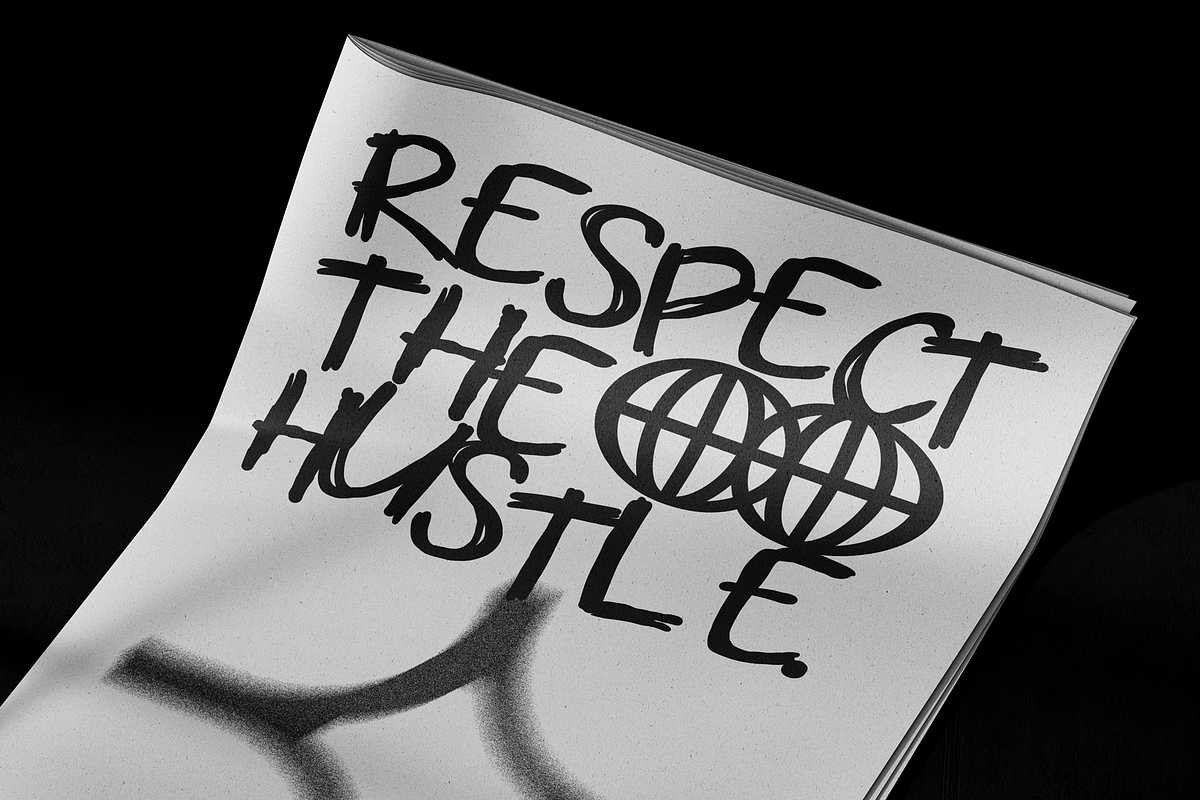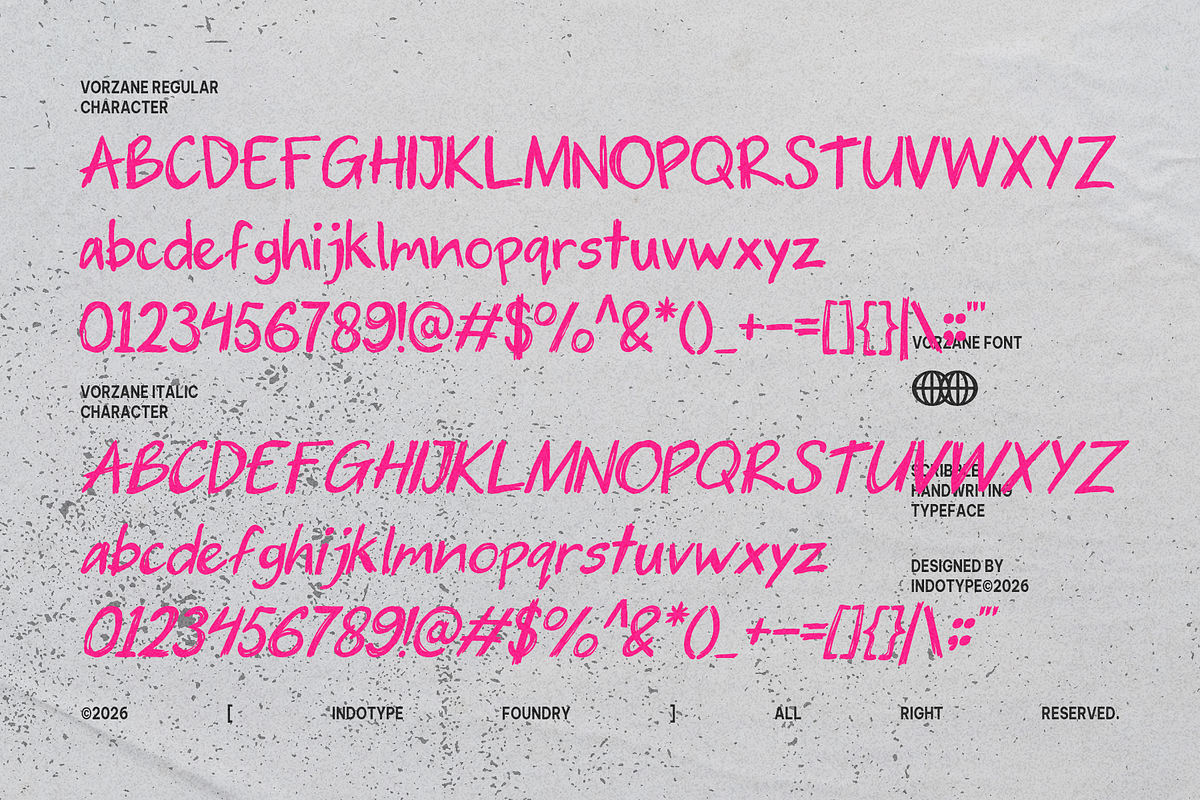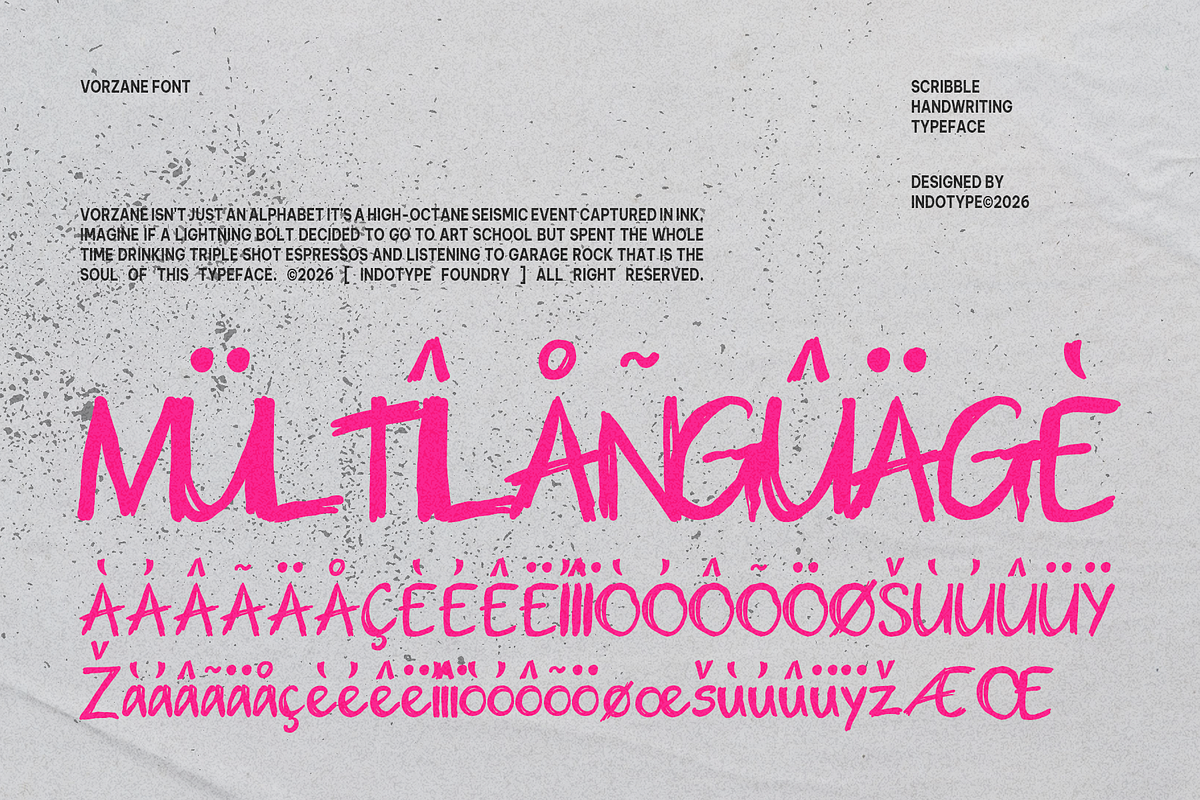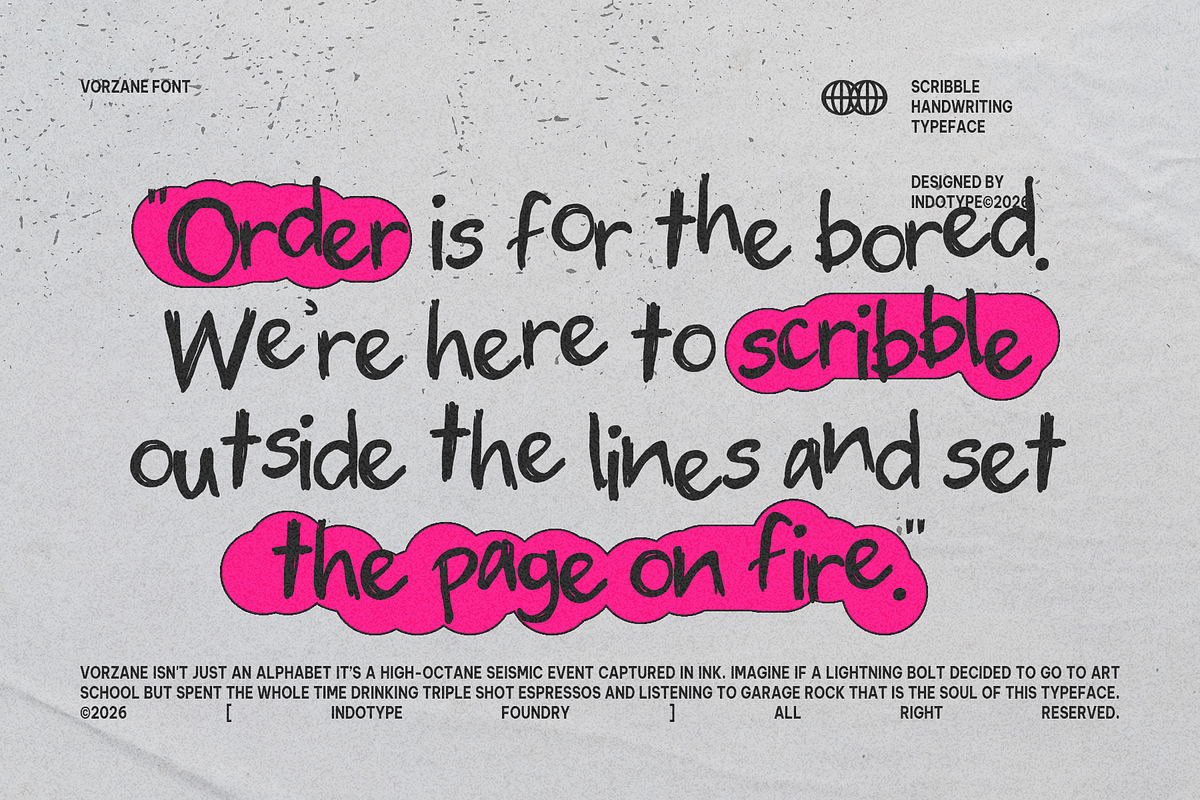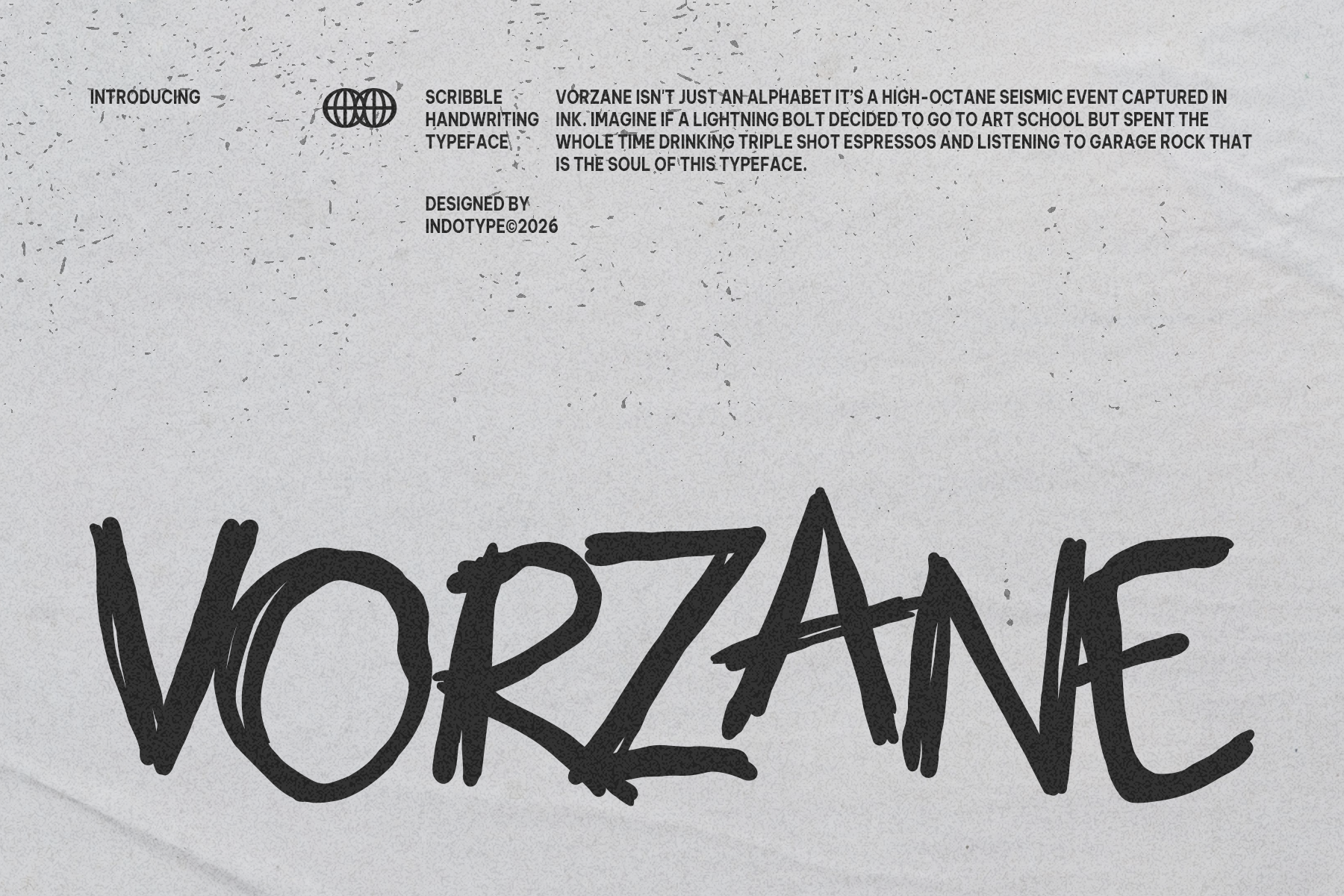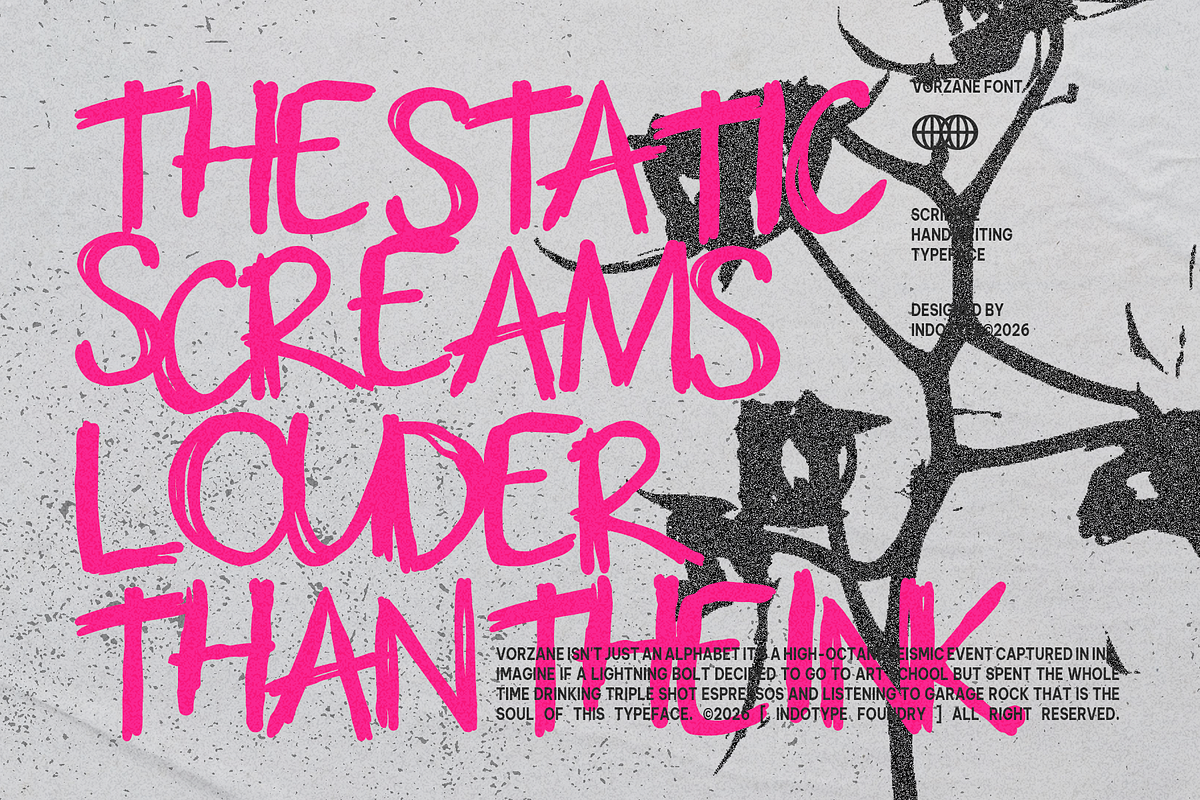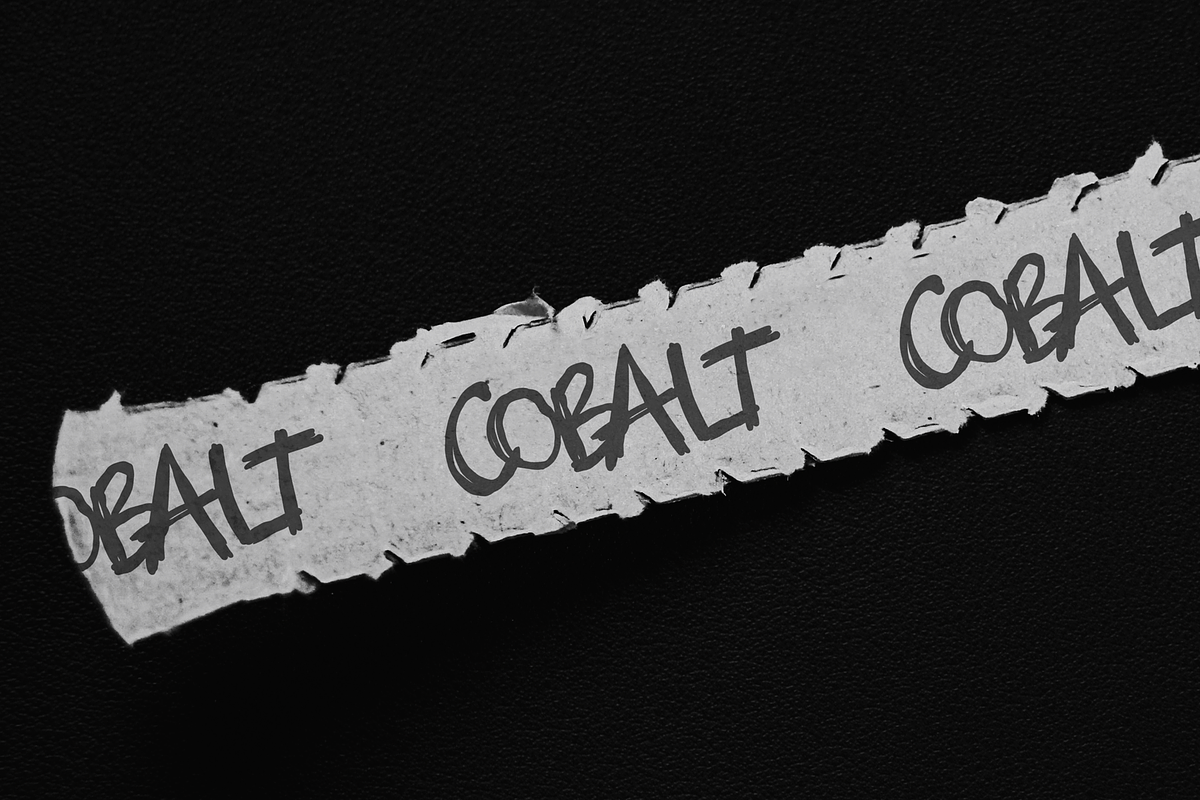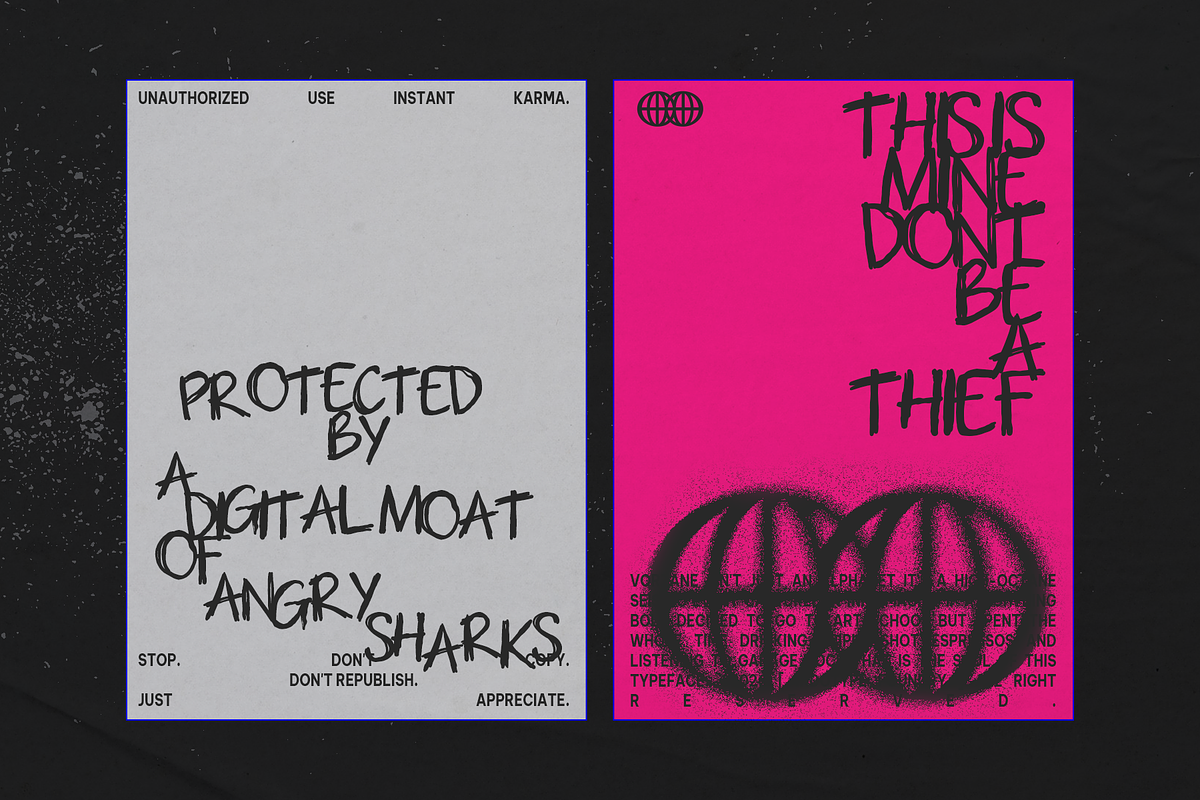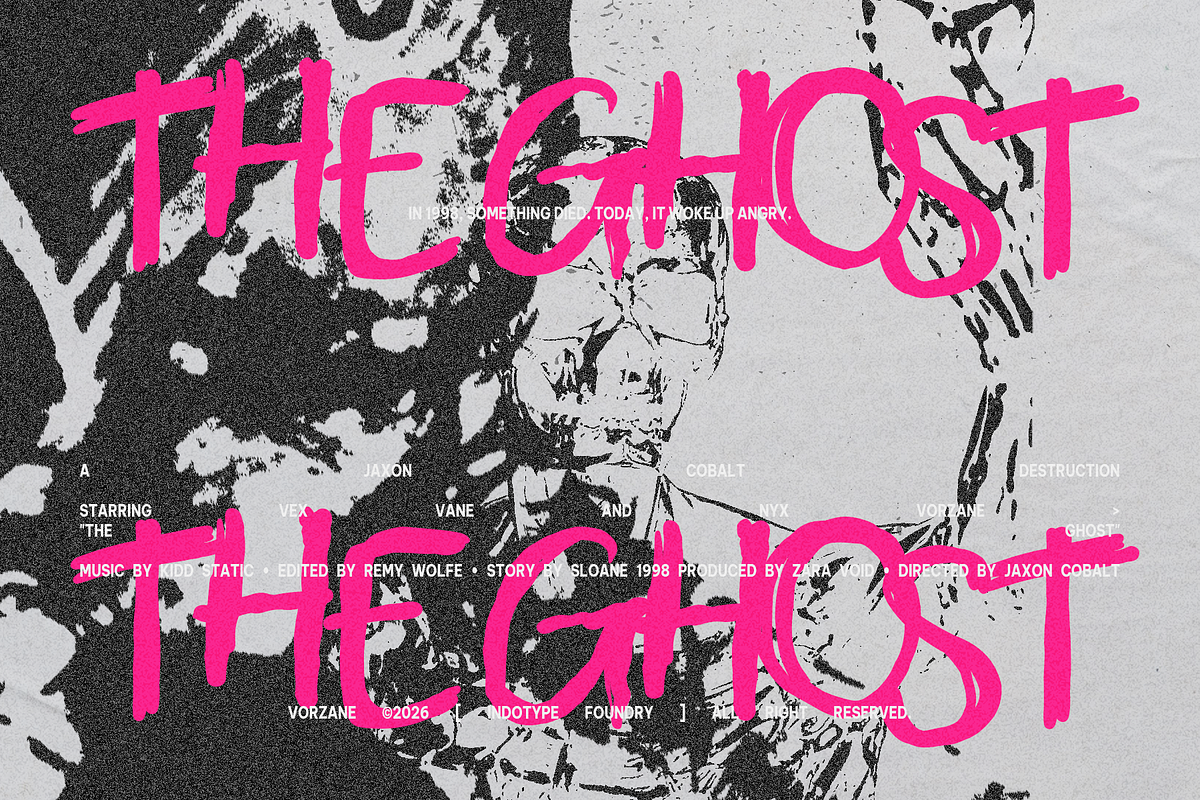
Vorzane - Scribble Handwriting Font
Vorzane isn't just an alphabet — it's a high-octane seismic event captured in ink. Vorzane is a scribble handwriting typeface of raw, unfiltered energy that operates at the extreme end of expressive type design: where handwriting abandons its civility, where the pen moves faster than thought, and where the mark left on the surface carries the full kinetic charge of a human being in a state of creative urgency. Imagine if a lightning bolt decided to go to art school but spent the whole time drinking triple shot espressos and listening to garage rock — that is the soul of this typeface. Vorzane is not designed for the faint of heart, the overly cautious, or the brand that wants to blend in. It is designed for the ones who have something to say and cannot wait to say it. Vorzane's letterforms are constructed from rapid, pressure-varied brush and marker strokes that capture the full physicality of fast, expressive mark-making. Each character bears the evidence of speed: strokes that thin dramatically under reduced pressure, swell where the tool pressed harder against the surface, overlap at junctions where the hand changed direction without lifting, and terminate in raw, ragged endings that carry the energy of the gesture all the way to its final point. These are not polished or refined marks — they are urgent ones, and their urgency is the source of their power.